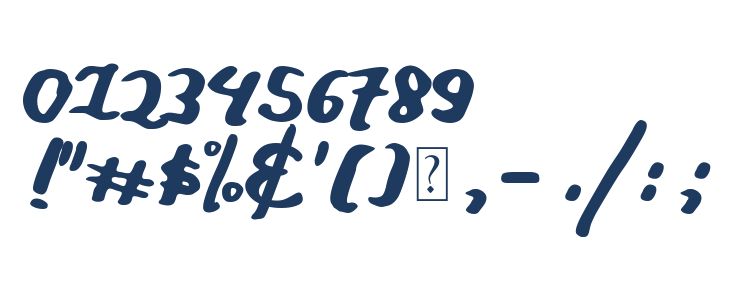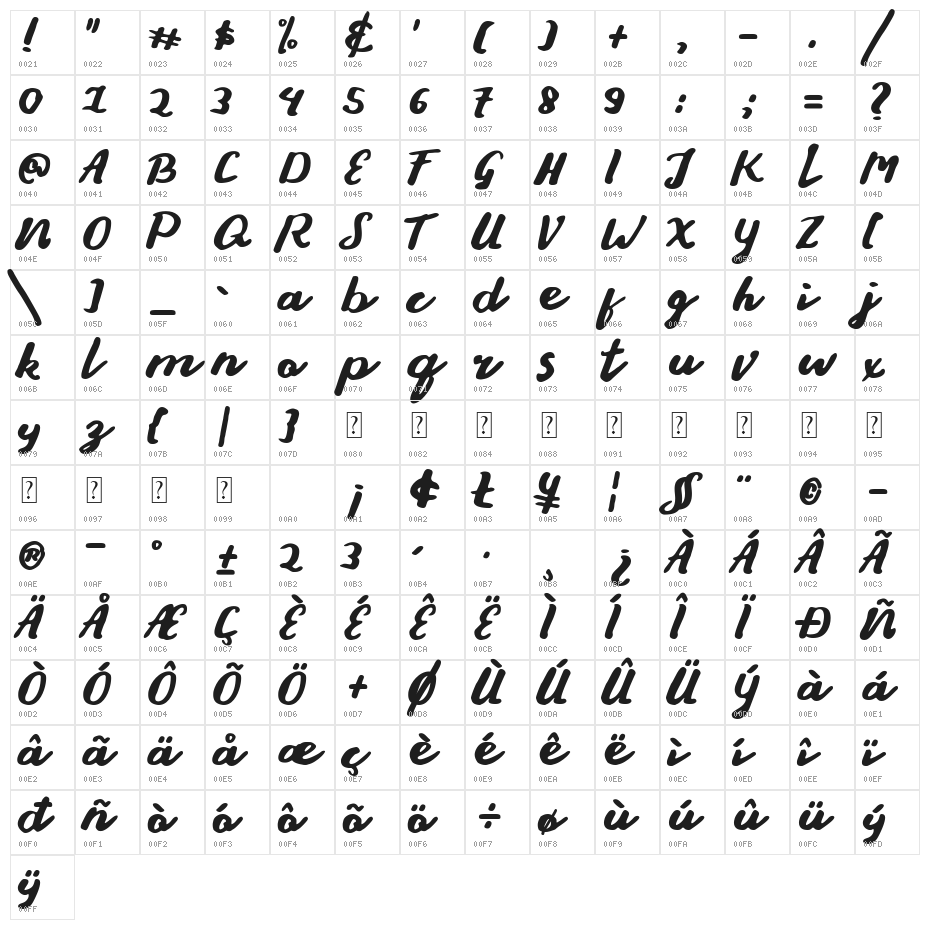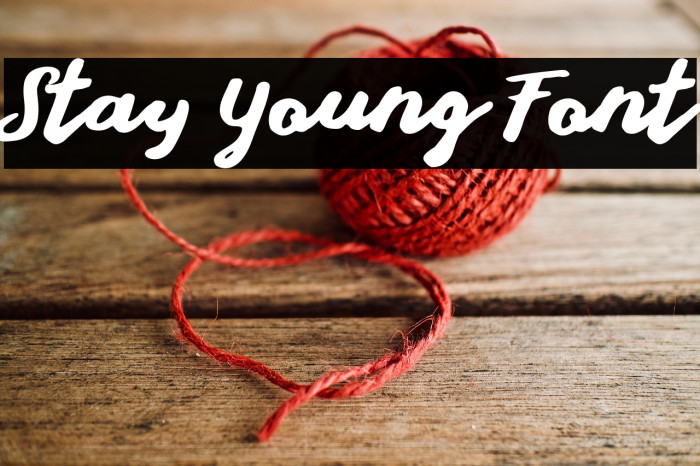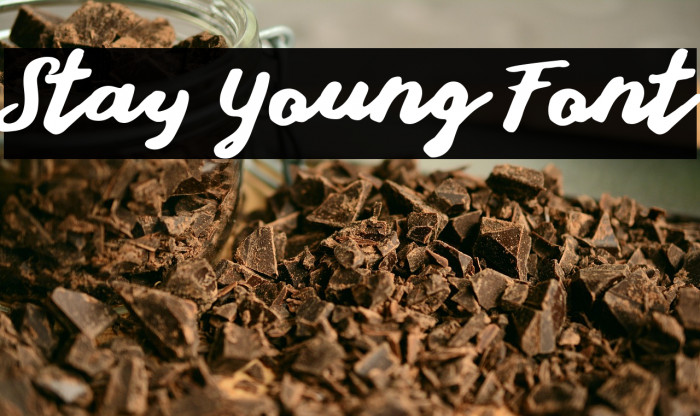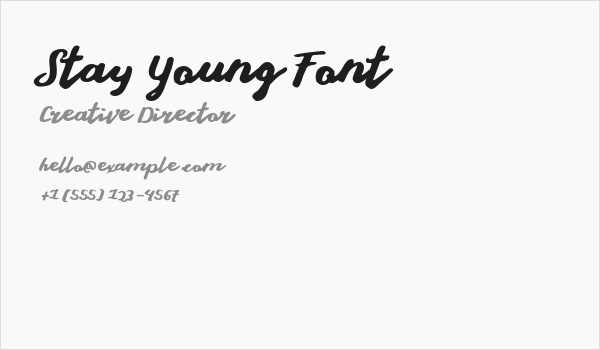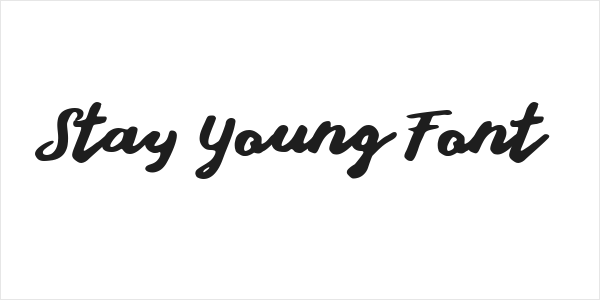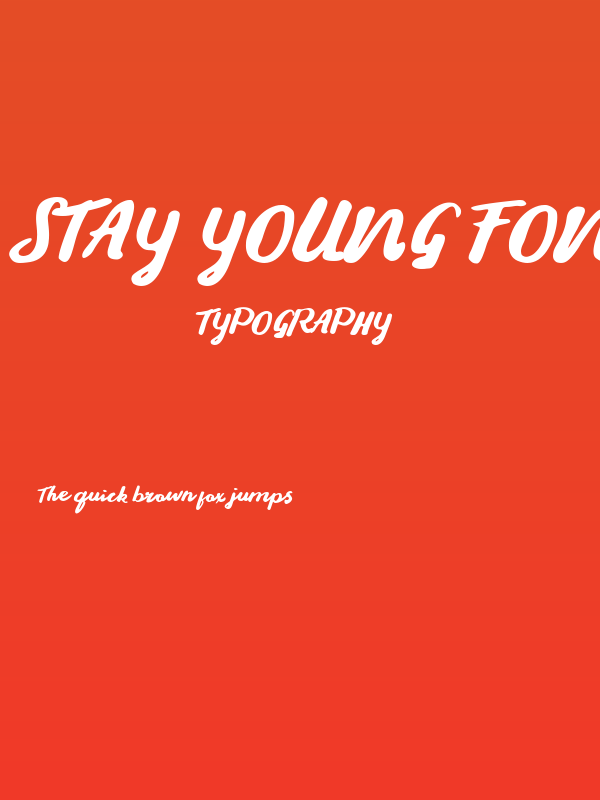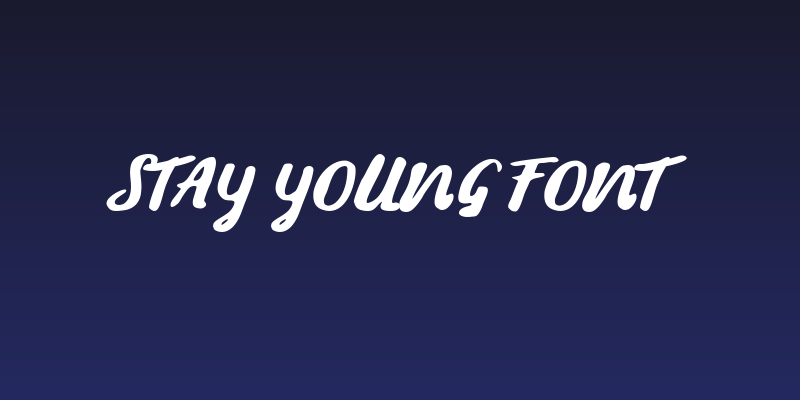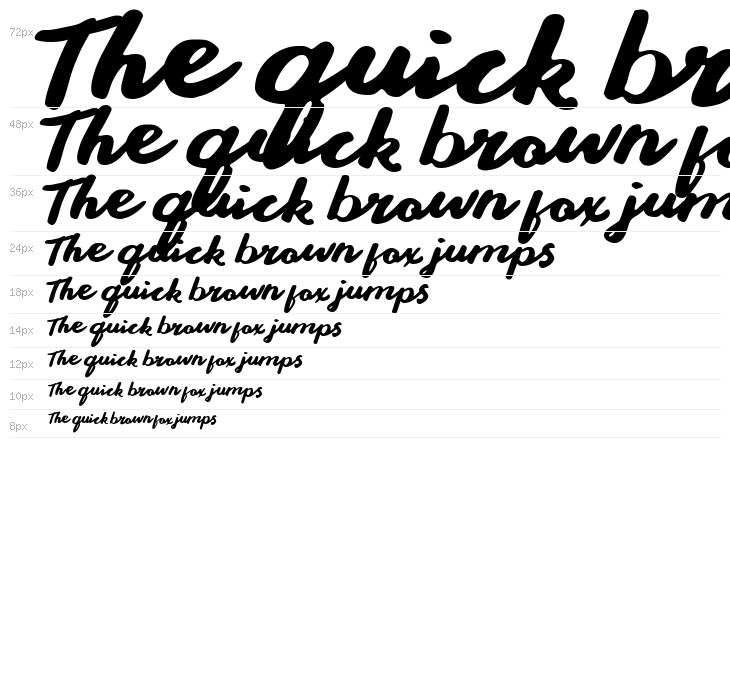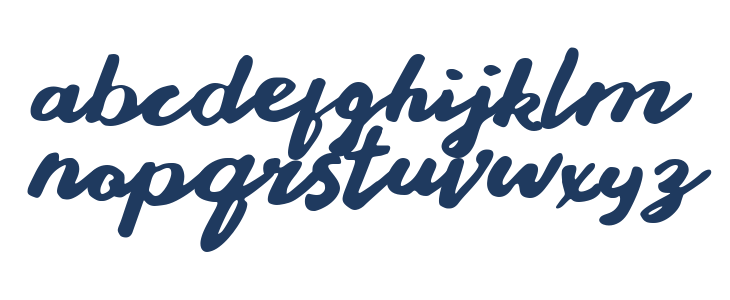
Stay Young Font Description
This font features a bold, cursive style with a playful and energetic feel. The letters are connected smoothly, creating a sense of flow and movement. The uppercase characters maintain a consistent height, while the lowercase letters exhibit a slight slant, enhancing the dynamic appearance. The numbers are equally bold and maintain the same playful style, making them stand out. Special characters are designed to match the overall aesthetic, ensuring a cohesive look across all text elements. The font's thick strokes and rounded edges contribute to its friendly and approachable vibe, making it suitable for a variety of creative projects.
| Proposed Projects | Ideal for branding, packaging, greeting cards, and social media graphics. |